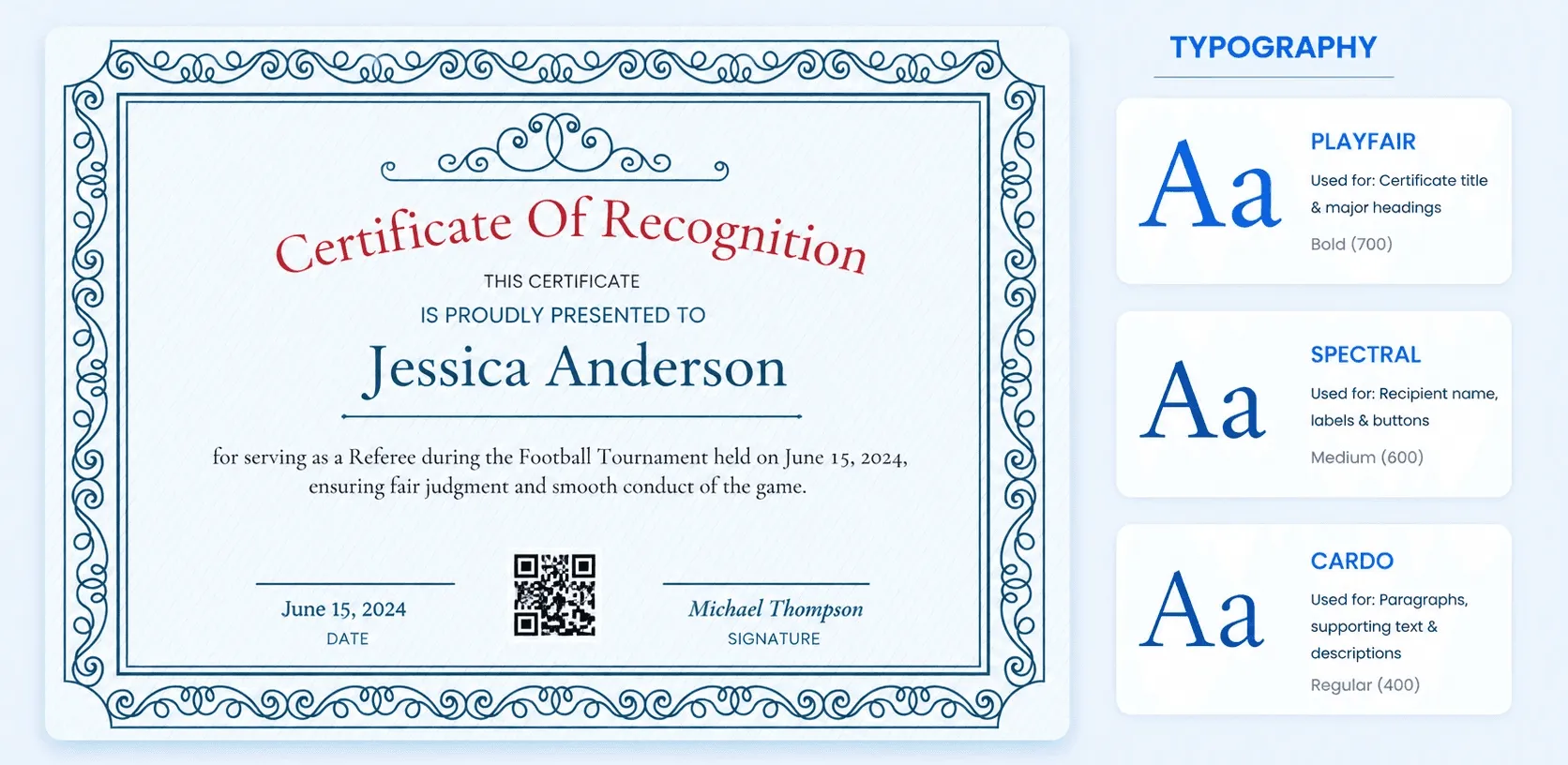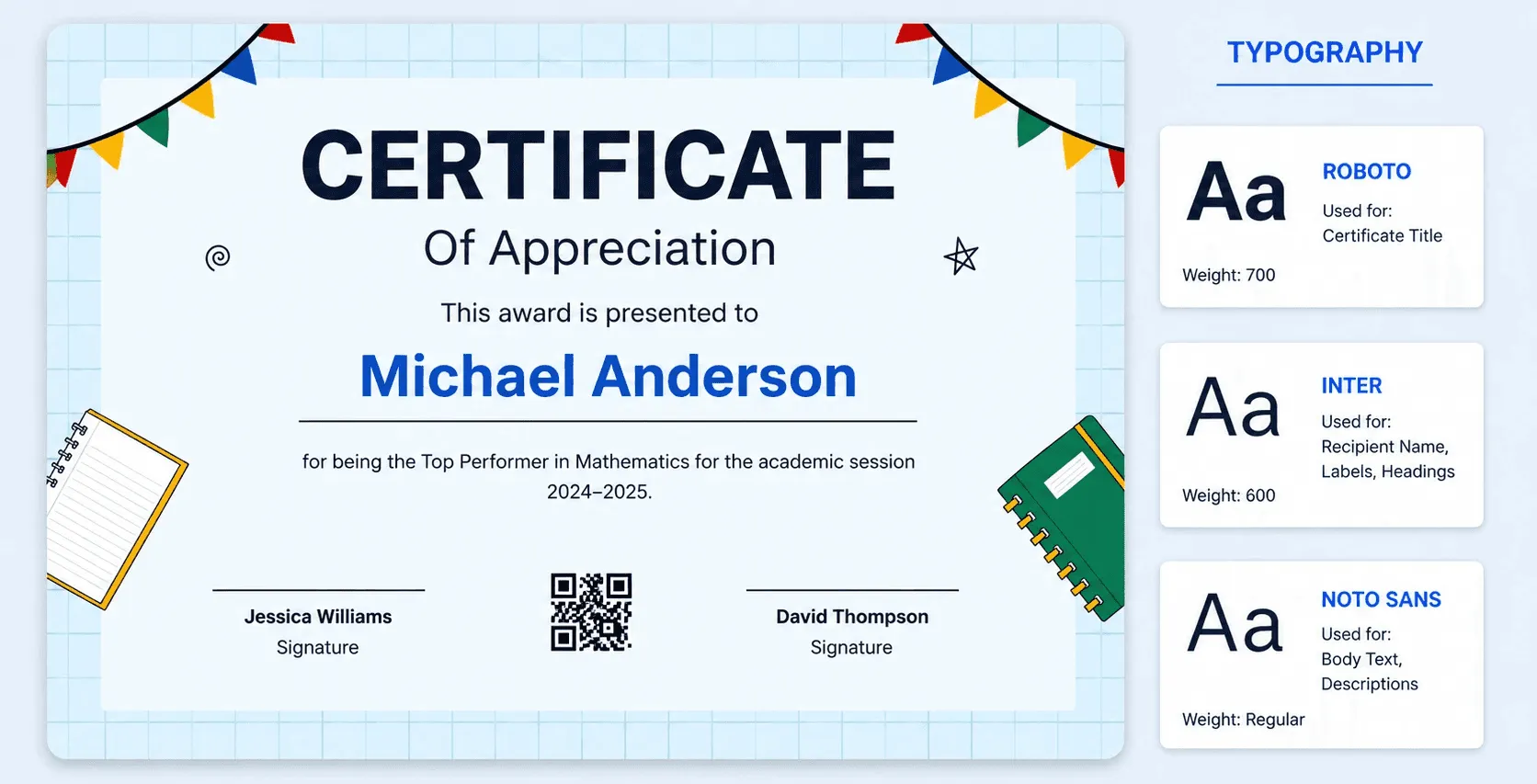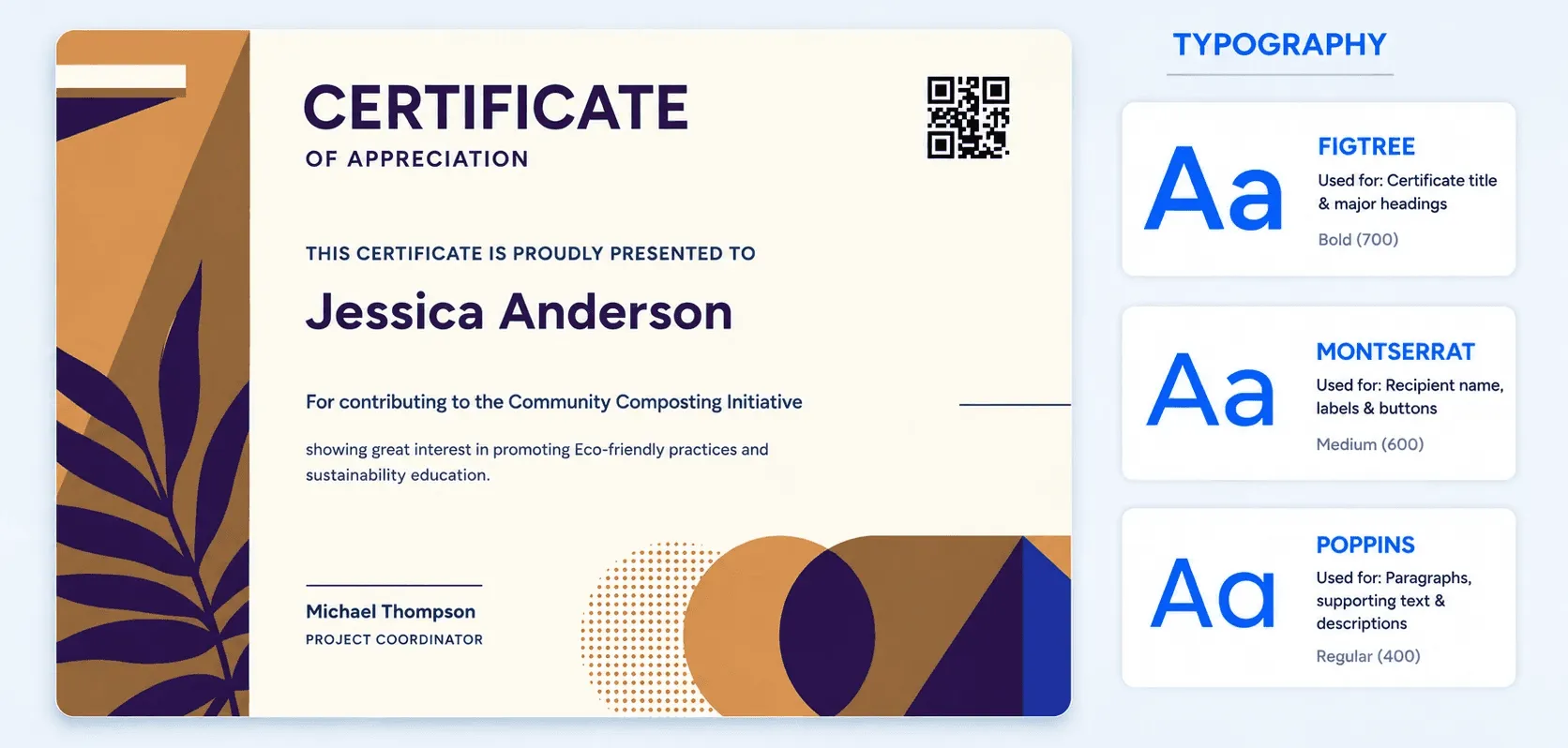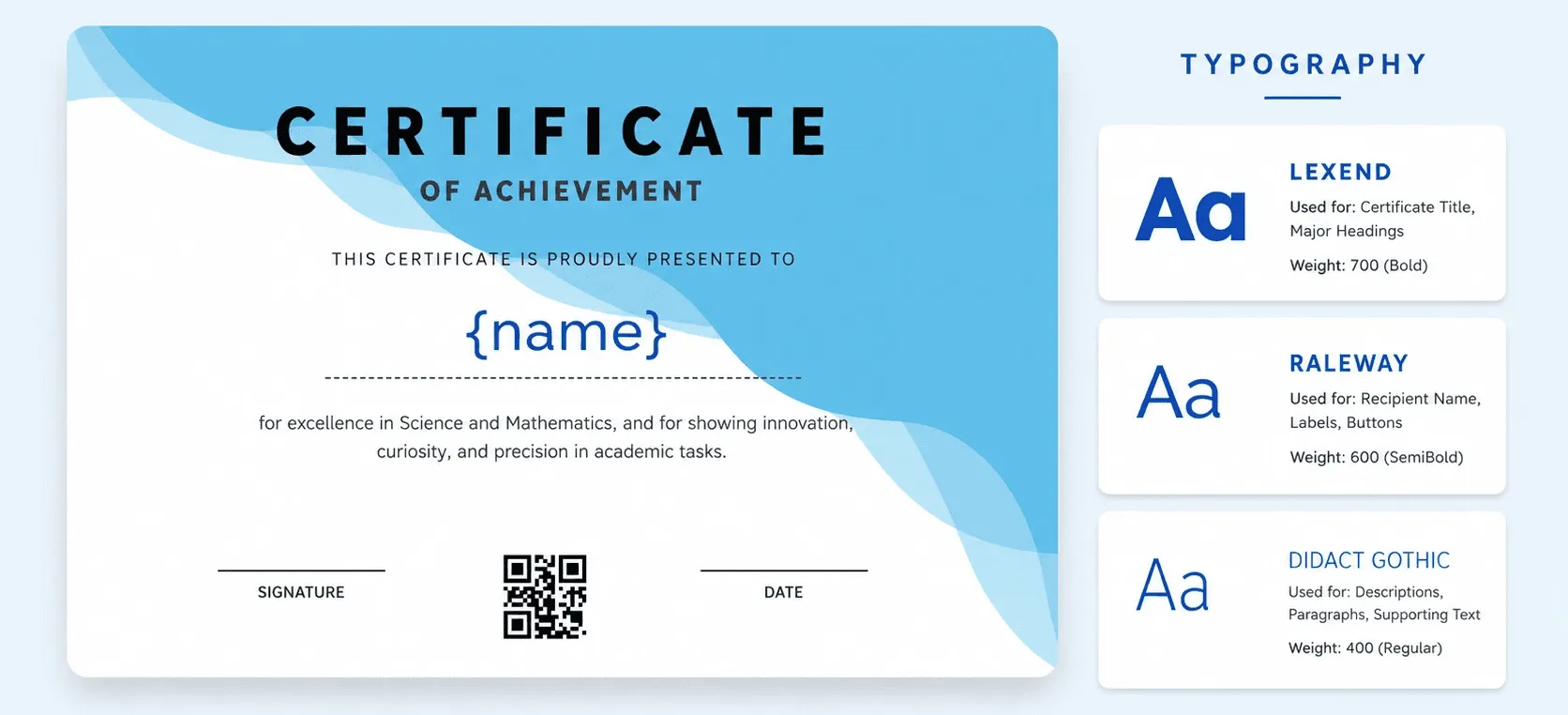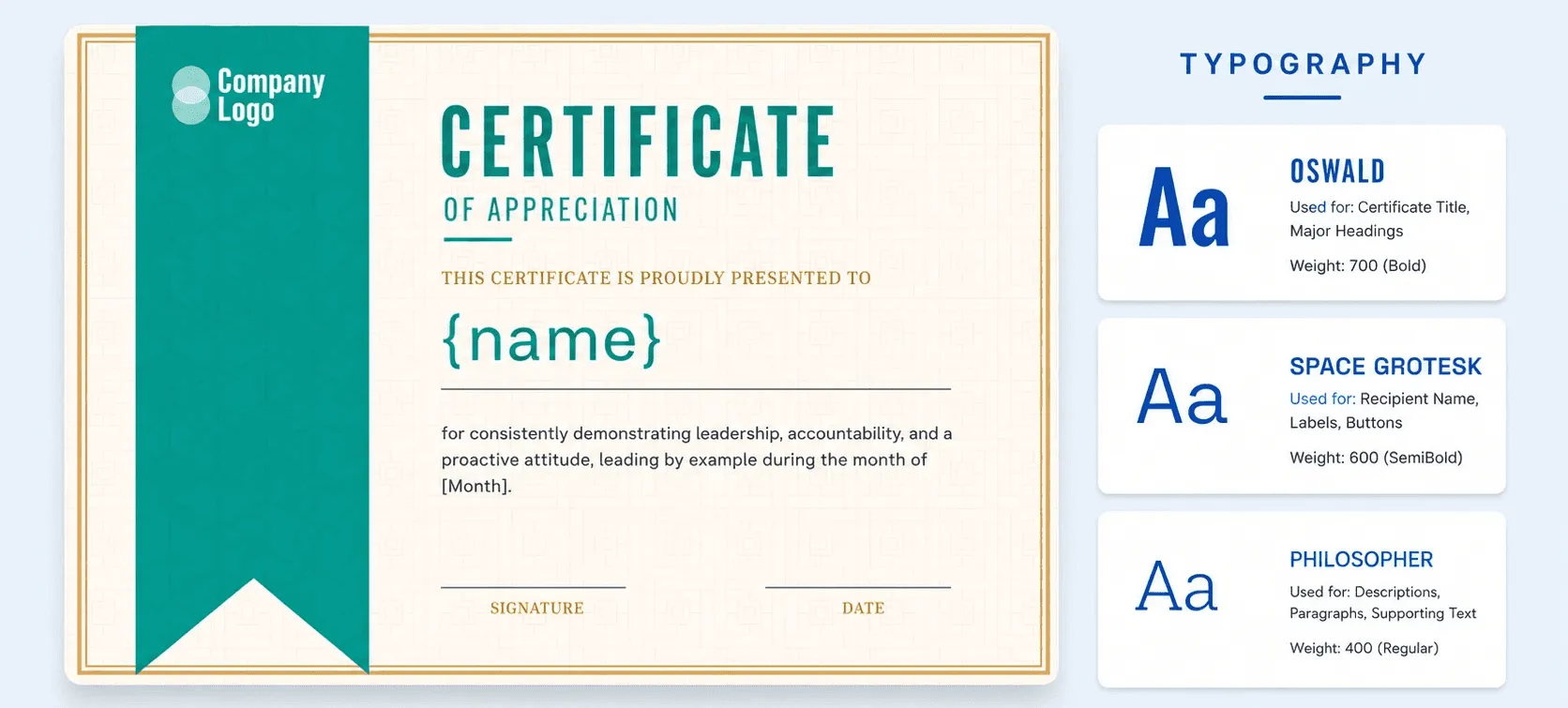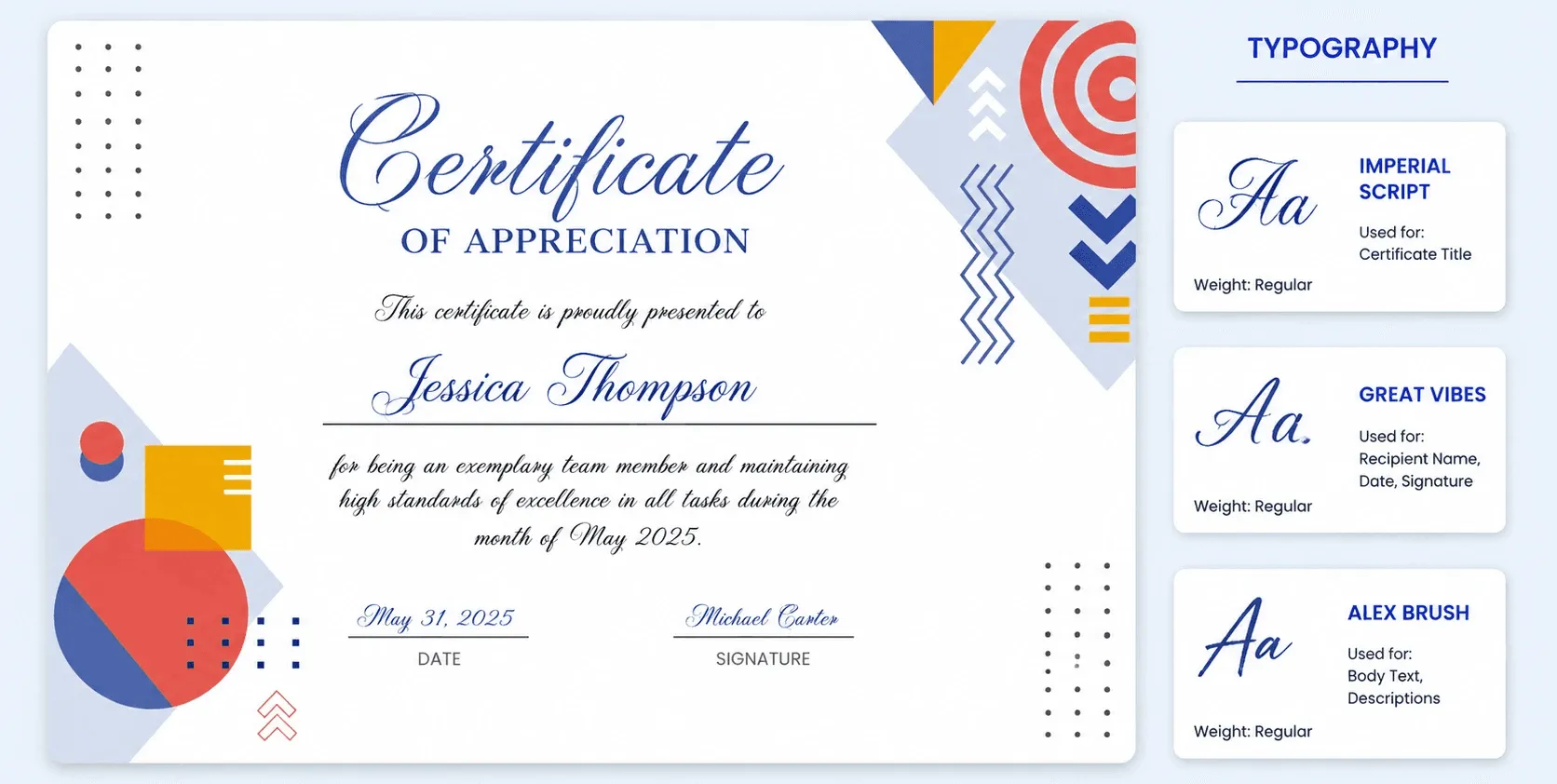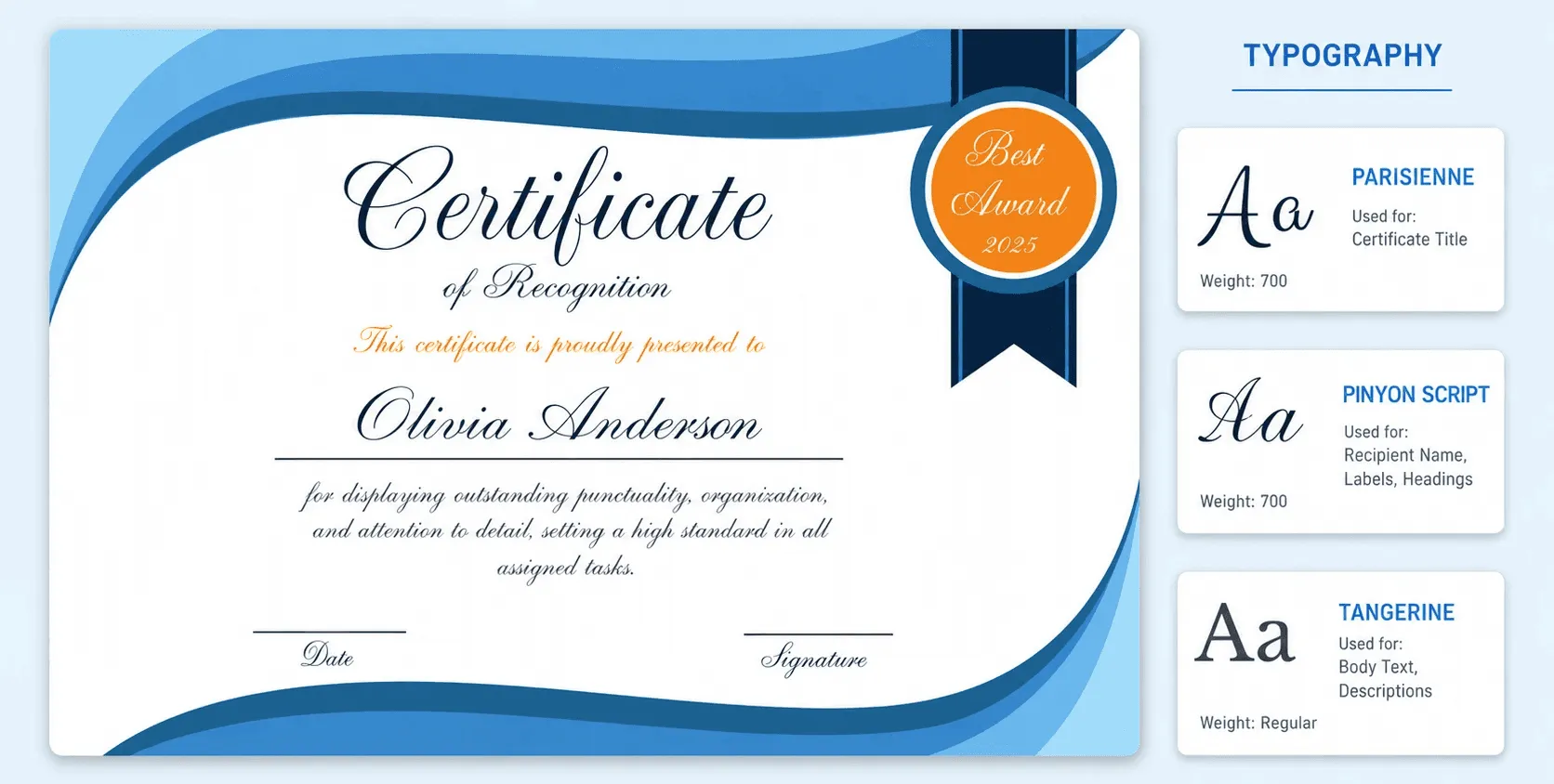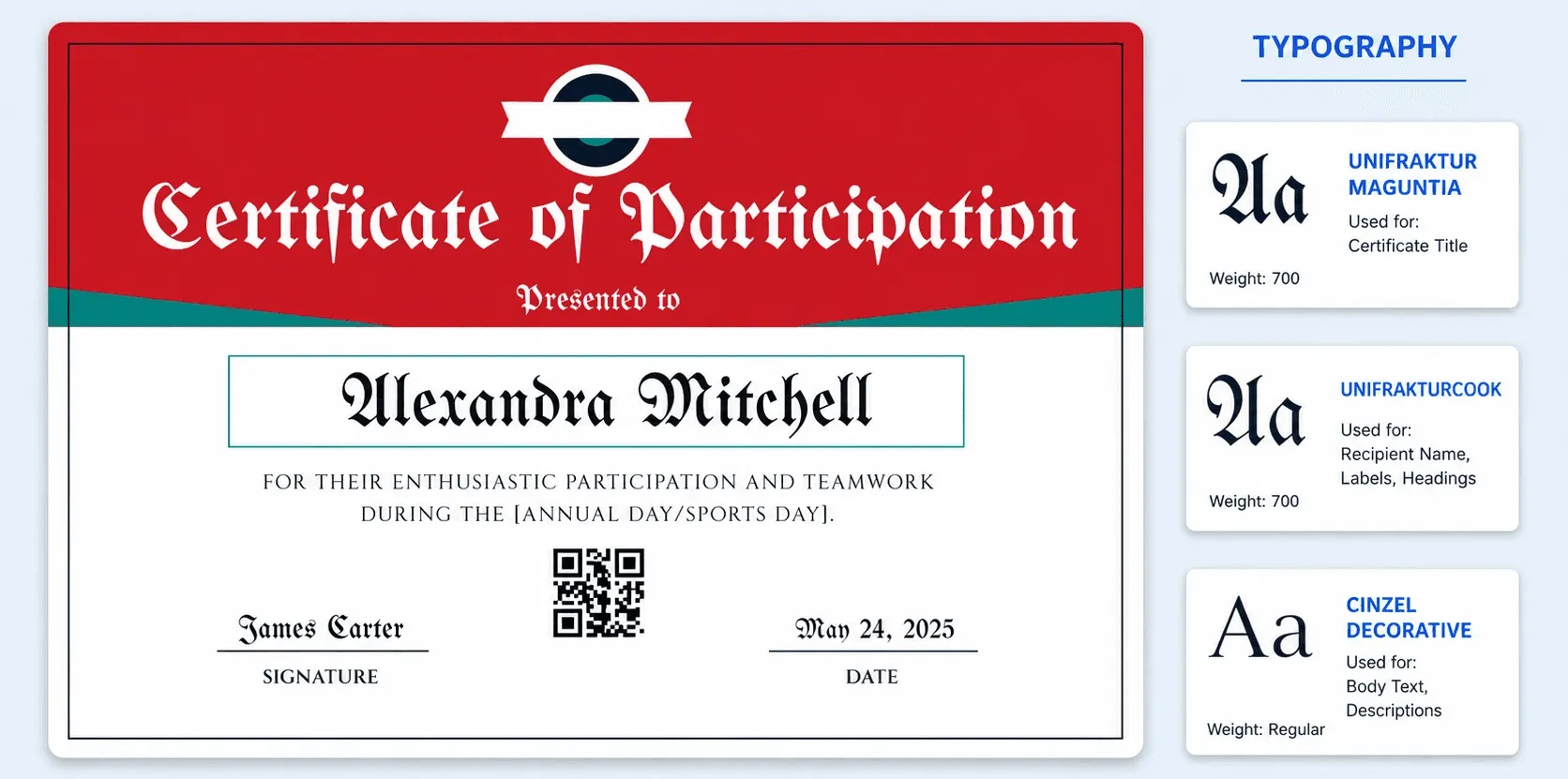
30 Best Fonts for Certificates: The Complete Guide
Guide to Certificate Fonts
Think about the last certificate you actually kept. Maybe it's pinned above a desk, tucked into a folder you reopen occasionally, or photographed and shared online. Chances are, the typography played a bigger role in that decision than you realized - a clumsy font choice can make even a genuine achievement feel like a template nobody put thought into.
That's the real challenge with certificate fonts: it's easy to default to whatever your design tool opens with, and harder to actually pick something intentional. This guide skips the guesswork. We'll walk through the best font for certificates, grouped by the vibe each one brings to the table, plus the sizing rules and pairing tricks that separate an amateur-looking handout from something a recipient actually wants to frame.
What Makes a Good Certificate Font in the First Place?
A typeface is never just decoration. It's doing real work - setting the mood, signaling formality, and determining whether the recipient's name is the first thing a reader's eye lands on or something they have to squint at. Certificate fonts carry the emotional weight of the document: a flowing script whispers "ceremony," a clean sans-serif says "professional and modern," and a heavy serif says "this has been around for a hundred years and isn't going anywhere."
Get the font choice wrong, and even a beautifully designed certificate can feel cheap or hard to read. Get it right, and the typography quietly does half the persuading for you.
Serif Font vs. Sans-Serif Font for Certificates: The Basics
Before picking individual names, it helps to understand the two camps almost every certificate font falls into.
| Overall Style | Traditional, formal, and classic | Modern, clean, and minimal |
| Letter Design | Small decorative “feet” or strokes at letter ends | Clean letters without decorative strokes |
| Best For | Academic certificates, diplomas, and formal awards | Digital certificates, online courses, and modern programs |
| Visual Feel | Heritage, authority, and prestige | Simplicity, clarity, and professionalism |
| Best Medium | Printed and framed certificates | PDFs, emails, phones, and screens |
| Readability | Works beautifully in formal print layouts | Highly legible, even at smaller screen sizes |
| Choose It When | You want a timeless, prestigious certificate | You want a sleek, digital-first certificate |
Serif Fonts: The Traditional Choice
Picture little "feet" sitting at the ends of each letter. That's a serif font - the traditional serif family that's been the backbone of academic certificates, diplomas, and formal awards for decades. These little strokes add a sense of heritage and authority, which is exactly why serif fonts print so beautifully on physical certificates that get framed and hung on walls.
Sans-Serif Fonts: The Modern Choice
Strip those feet away and you get a sans-serif font - clean, minimal, and built for screens. If your certificates live mostly as PDFs, get emailed out, or show up on a phone, a modern sans-serif keeps legibility high no matter how small the text gets.
Neither style is objectively "better." The right one depends entirely on where your certificate is headed and who's going to see it.
The Best Fonts for Certificates, Grouped by Vibe
Rather than dumping 30 names on you in one long list, here's how each font from our roundup actually feels in practice - so you can match the font style for certificate design to the occasion by selecting an excellent choice for certificates that reflects the event's significance.
# Quietly Elegant Serifs: EB Garamond, Cormorant Garamond, Libre Baskerville
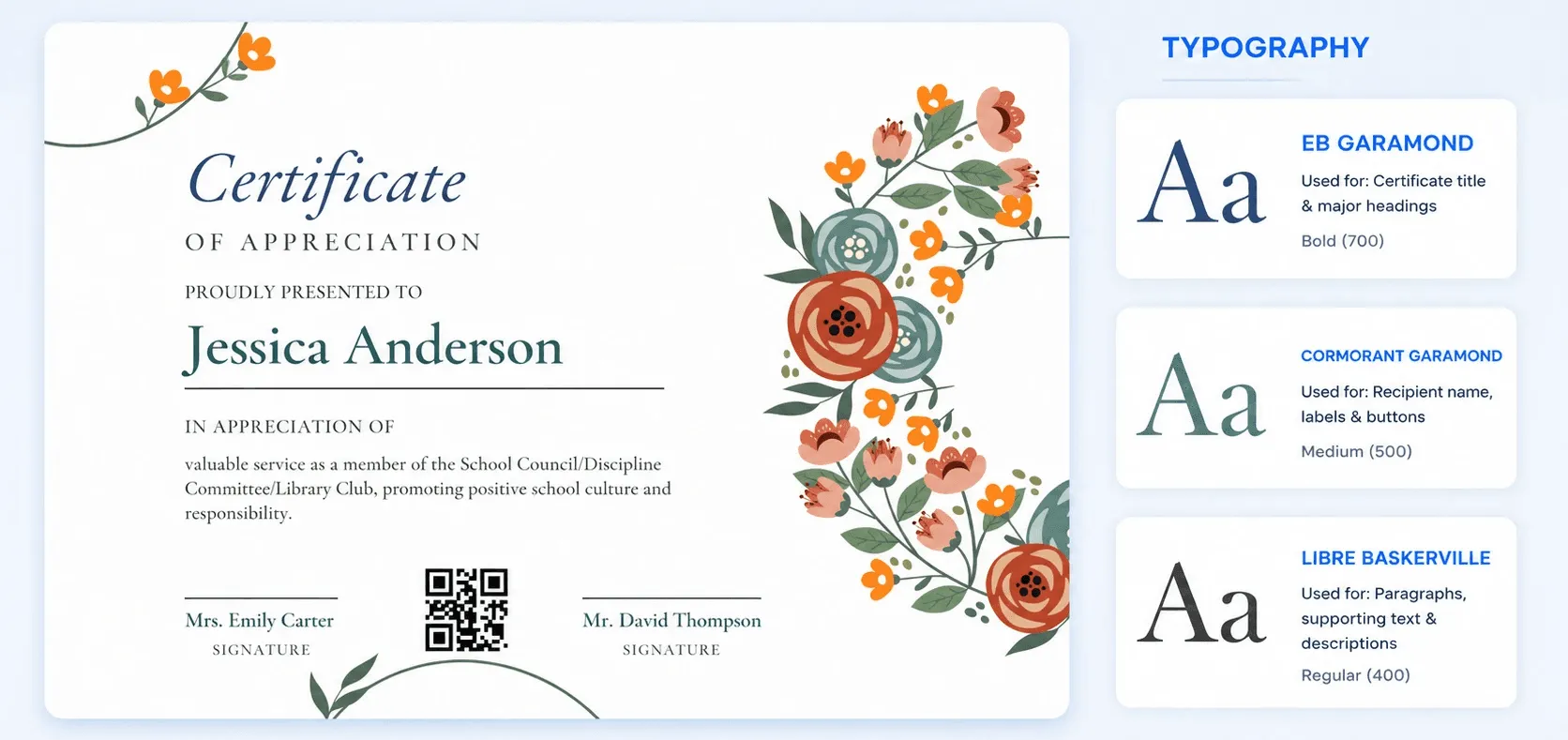
1. EB Garamond: It has that old-style, literary quality - the kind of calligraphy that adds elegance to any certificate, traditional serif makes an honors document or academic award feel like it belongs in a leather frame.
2. Cormorant Garamond: It takes the same old-world DNA and refines it further, adding fine hairline strokes and a distinctly high-fashion feel that's particularly striking when the recipient's name is set large.
3. Libre Baskerville: It rounds out the trio with slightly crisper, more contemporary letterforms - timeless elegance without tipping into anything stiff or overly historical.
Also worth exploring in this category: Spectral, Cardo, Sorts Mill Goudy.
# Bold and Dramatic: Playfair Display, Cinzel, Sorts Mill Goudy
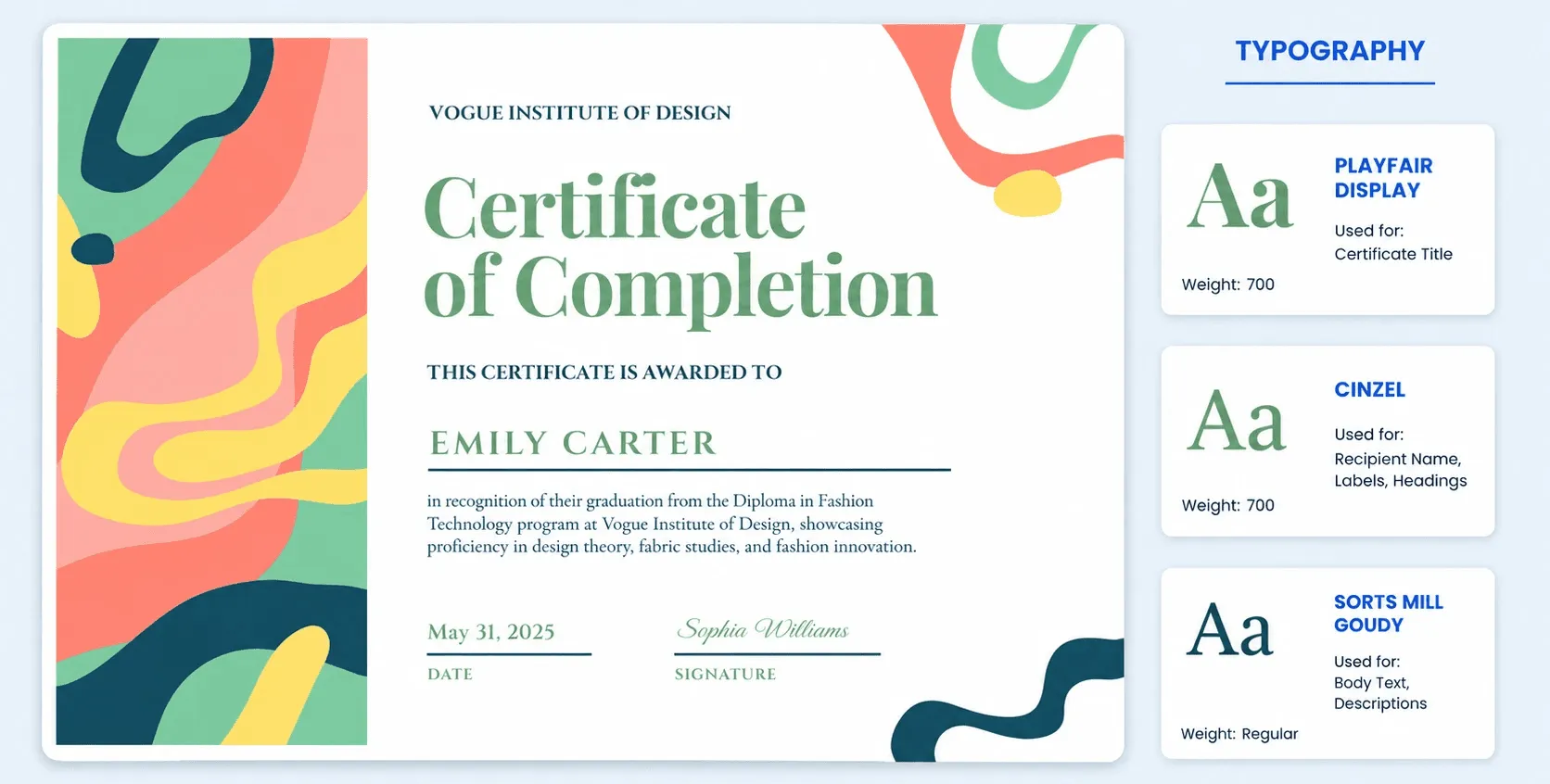
4. Playfair Display: When the title needs to make an entrance, Playfair Display brings high-contrast drama - thick strokes meeting razor-thin hairlines in a way that commands attention. It's a best certificate font pick for headers where you want a real touch of elegance before anyone reads a word of body copy.
5. Cinzel: It draws directly from classical Roman inscriptions, giving certificates a monumental, carved-in-stone authority that suits honors and awards perfectly.
Whether you land on the literary charm of EB Garamond, the screen-friendly precision of Inter, or the ceremonial flourish of Imperial Script, the goal stays the same: a certificate that's easy to read, feels right for the occasion, and makes the recipient want to keep it somewhere visible. With Wauld, you can bring these typography choices into your certificate design and create professional, polished credentials that match the achievement they're meant to recognize.